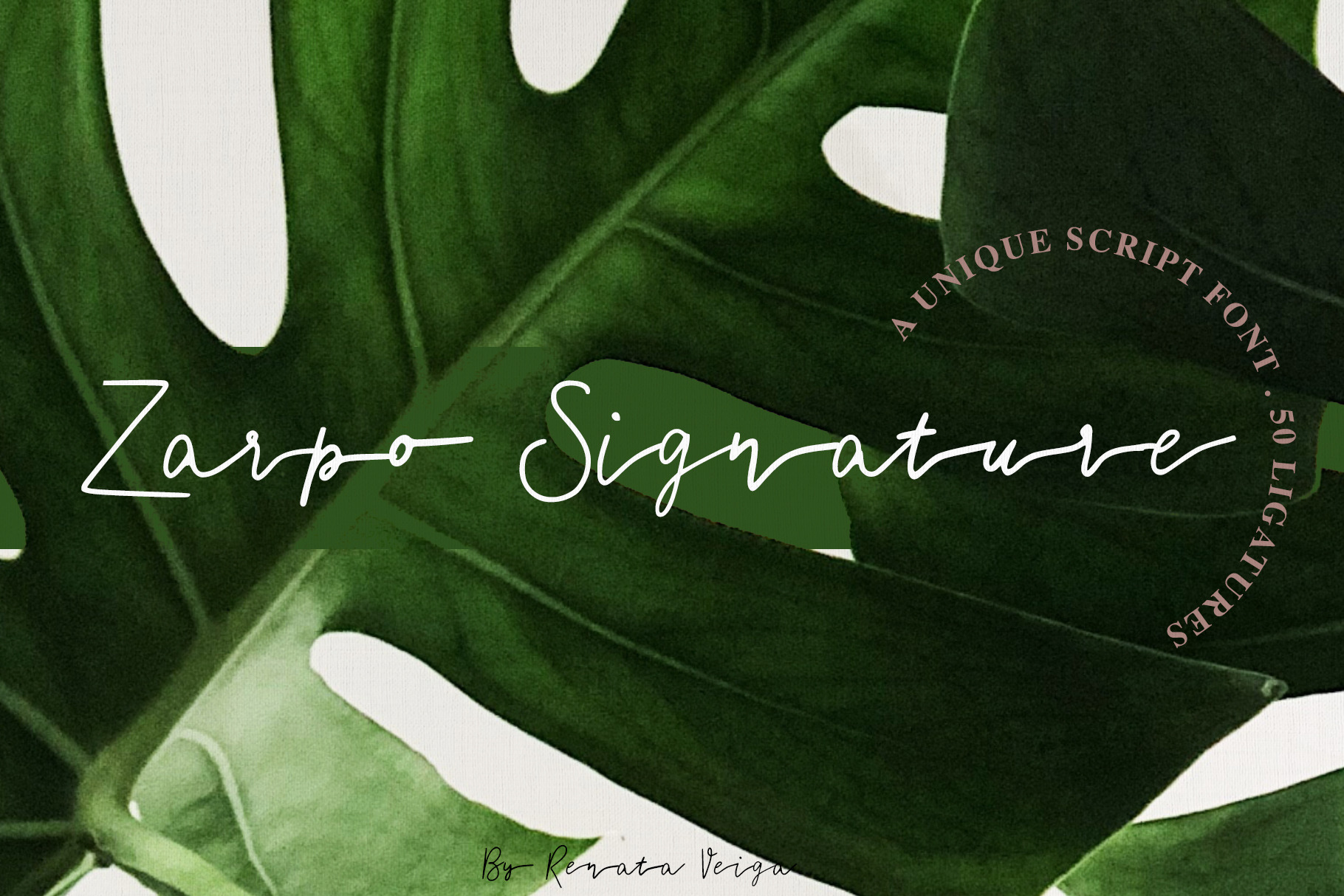
Zarpo Signature - Handwritten Font
Zarpo signature is a handwritten font includes uppercase and lowercase hand drawn characters and glyphs, 50 ligatures, numerals, punctuation and multilingual support. It's perfect for branding, wedding invitations or cards, labels and packages, overlay text on background images.
Multilingual (ÀÁÂÃÆAÇÈÉÊËĞÍÎÑÒÓÔÕÖŎŒØŞÙÚŸÝßàáâãåæçèéêëğìîñòóôõöŏœøşùúýÿ)